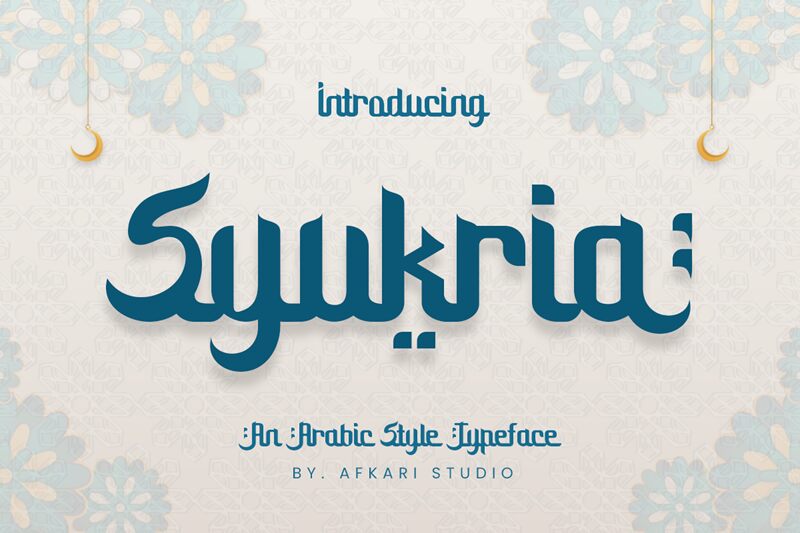
Syukria font by Afkari Studio is a free font inspired by Arabic lettering styles. The decorative typeface takes inspiration from the artistic handwriting styles that have evolved in the past, to visually translate the Arabic essence. Its flowing alphabet has been specially designed to be cohesive and suitable for contemporary applications in elegant branding ideas.
Syukria is exceptionally well-versed in logos, posters, and packaging designs. Invitations, greeting cards, and even apparel designs also enjoy the ethnic visual balance it has to offer. Contemporary applications can include high-end brands as well as personalized items such as name tags.
Syukria is an exquisite Arabic style typeface that offers a unique aesthetic for your design projects. This free font is available for personal use, allowing you to explore its beautiful glyphs while adhering to the usage guidelines.